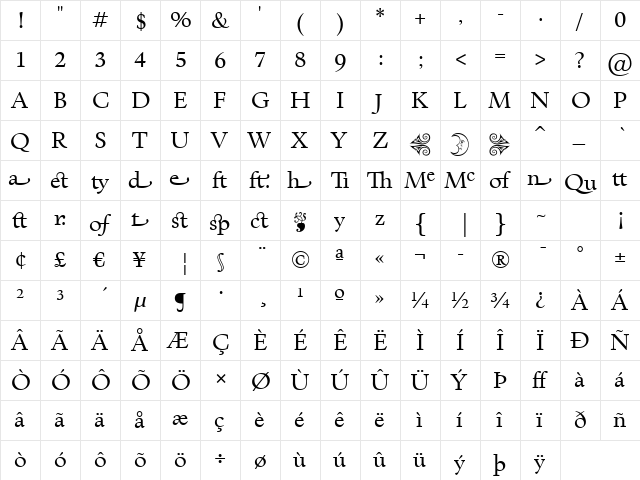
Kennedy Cus GD Book
Design Context for Kennedy Cus GD Typeface
Kennedy Cus GD takes a measured approach to typography — its balanced proportions and neutral character make it a reliable workhorse for both digital and print work.